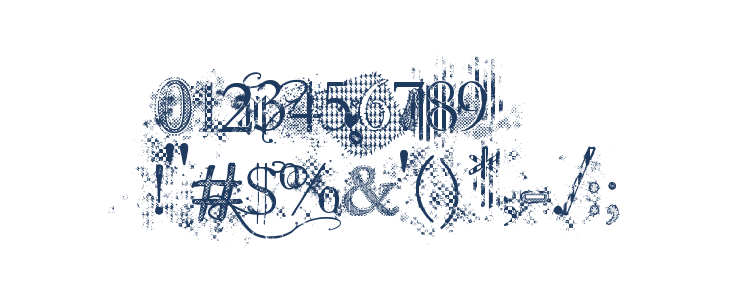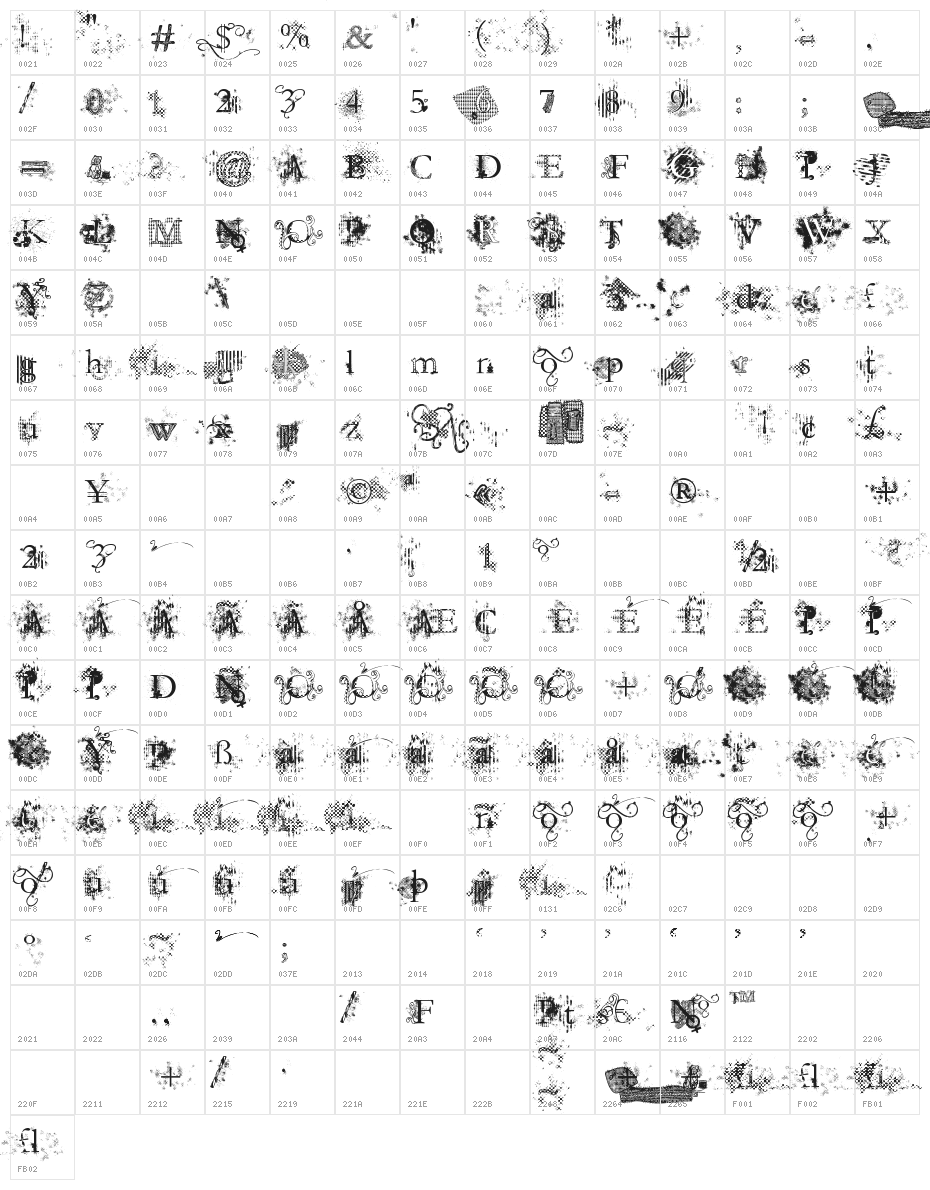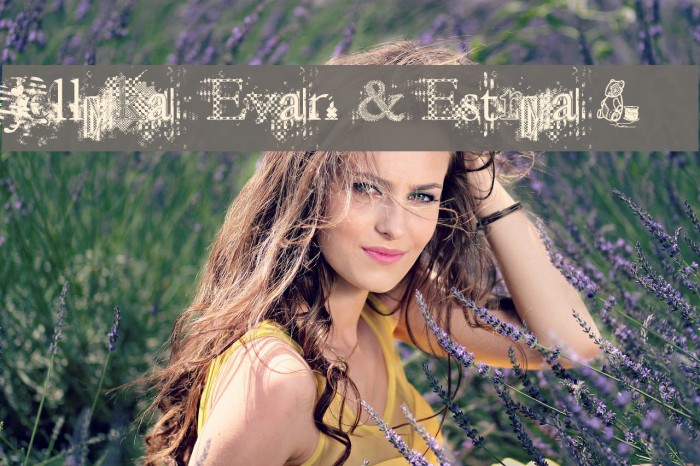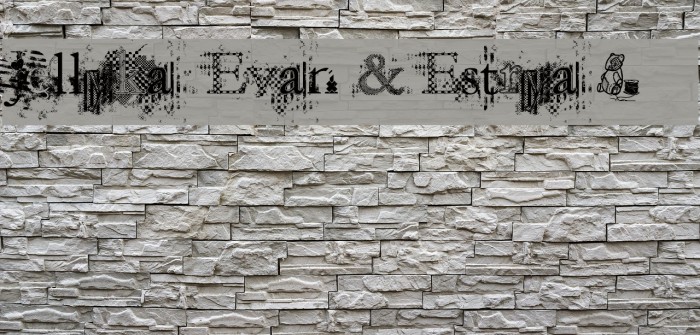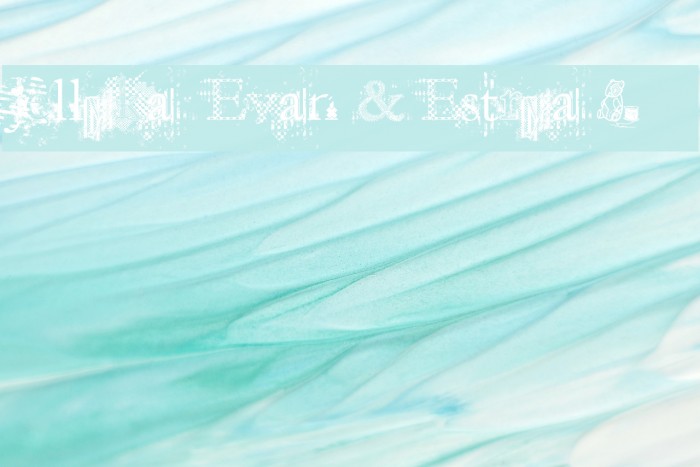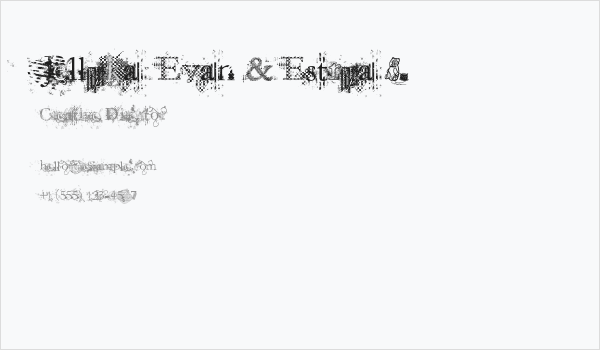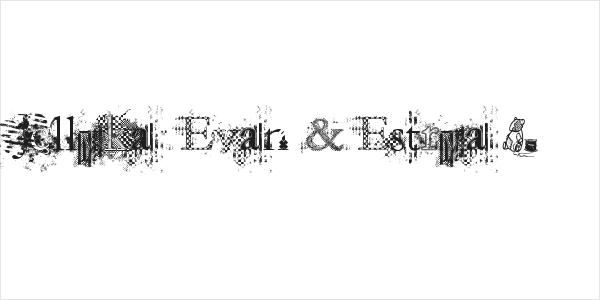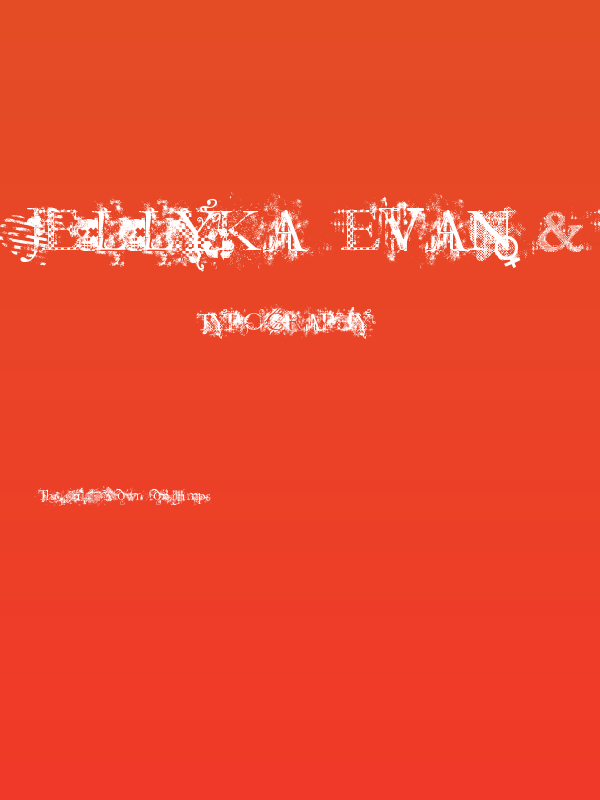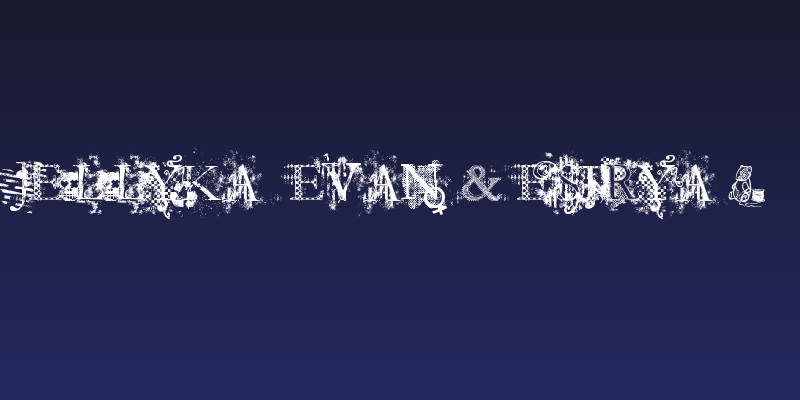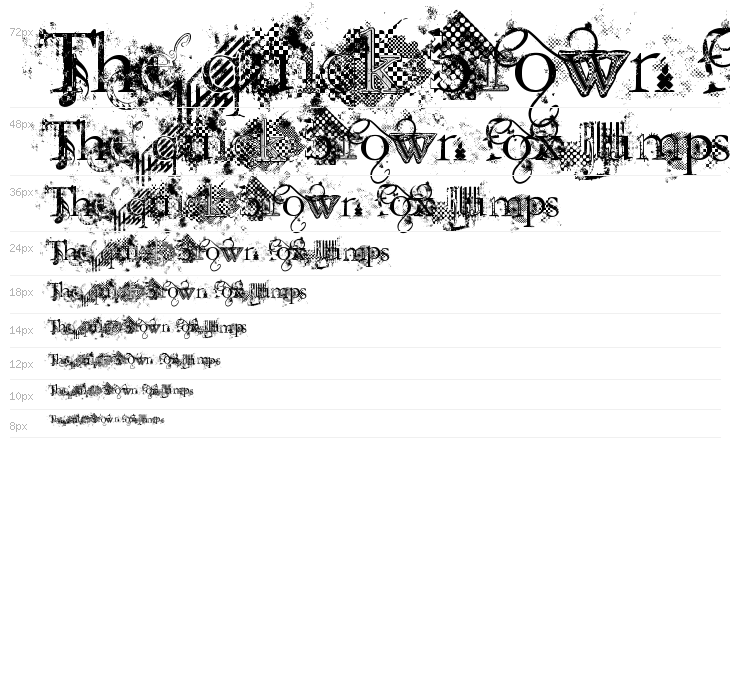
This font features a highly decorative and distressed style, with intricate details and a grunge aesthetic. The characters are embellished with various patterns and textures, giving them a unique and artistic appearance. The uppercase and lowercase letters, as well as numbers and special characters, are all designed with a consistent theme of complexity and visual interest. The font's chaotic yet structured design makes it stand out, offering a bold statement in any project. Its artistic flair is suitable for creative and unconventional uses, where a strong visual impact is desired.
| Use Case | Logos, Posters, Artistic projects |
| Proposed Projects | Ideal for album covers, posters, artistic projects, and any design requiring a bold, creative statement. |